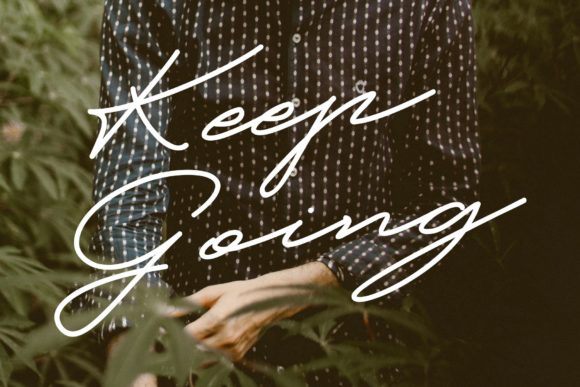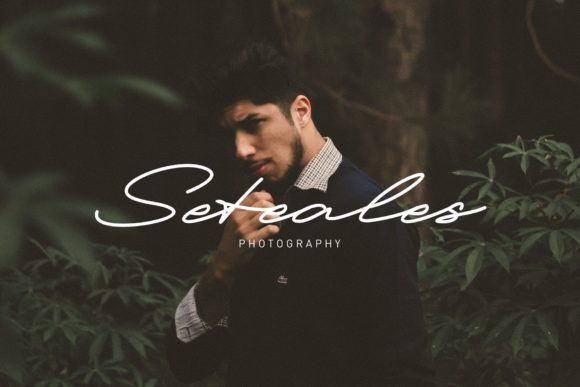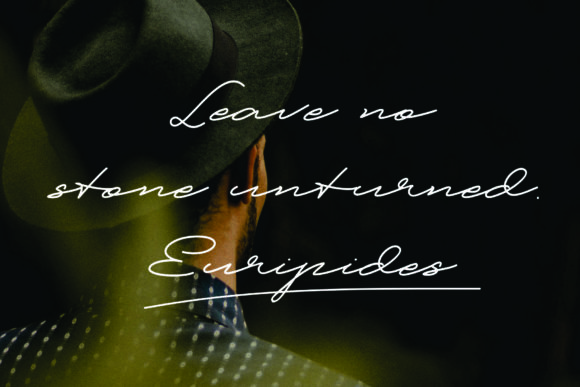
Introduction to Patton Font
Patton is a signature-like typeface suitable for any design project that requires a personalized appearance.
Get inspired by its flowing curves .
Key Features of Patton Font
Why Choose Patton Font?